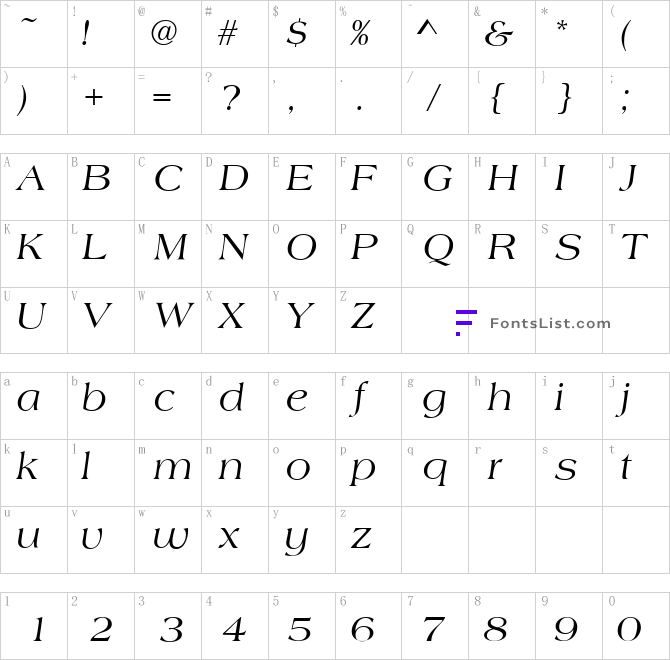
- Font Name:Almeria
Almeria-Italic.ttf is a very beautiful artistic font, Almeria-Italic.ttf is widely used in the design and printing of various books and pictures,Almeria-Italic.ttf has a strong visual impact,Almeria-Italic.ttf is a commonly used font in newspapers, magazines and books, and is used in posters, e-commerce Poster design, store design, logo design, font design and other fields.Almeria-Italic.